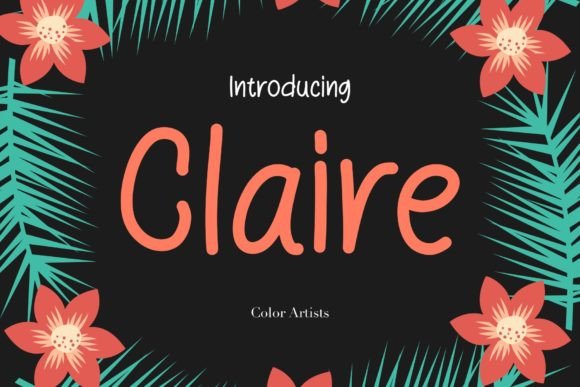
Prepare yourself to be captivated by Claire Font, an exquisite script font crafted with impeccable precision to evoke timeless elegance and sophisticated charm. Experience the delight of wielding a font that effortlessly transforms your creative endeavors into masterpieces. Claire Font beckons you to partake in a typographic symphony, where each letter dances across the page with graceful fluidity, leaving a trail of refined beauty in its wake.
Journey through an array of artistic possibilities with Claire Font. Its meticulously designed curves and delicate swashes lend an air of sophistication to any project, whether it be a wedding invitation, a branding campaign, or a heartfelt letter. Witness the harmony between classic and contemporary as Claire Font seamlessly blends traditional elegance with a refreshing modern touch.
As you explore the depths of Claire Font's character, you'll discover hidden nuances that elevate your designs beyond the ordinary. Each stroke, each curve, and every meticulously placed detail combines to create a font that speaks volumes. Whether you're a seasoned designer or just beginning your creative journey, Claire Font is your trusted companion, guiding you towards typographic excellence.
With Claire Font as your creative ally, you'll effortlessly craft designs that radiate elegance and refinement. Its versatility knows no bounds, adapting seamlessly to a multitude of projects and industries. From enchanting logos that captivate audiences to stunning social media graphics that leave a lasting impression, Claire Font is the ultimate choice for those seeking typographic perfection.
But there's more to Claire Font than just visual allure. It's a font that evokes emotions, stirring hearts and igniting imaginations. With every word you type, Claire Font weaves a spell that captivates readers, immersing them in a world of timeless beauty and sophistication. Let your words dance across the page, guided by the enchanting grace of Claire Font, and watch as they transform into an enchanting tale that leaves an indelible mark on the hearts of your audience.